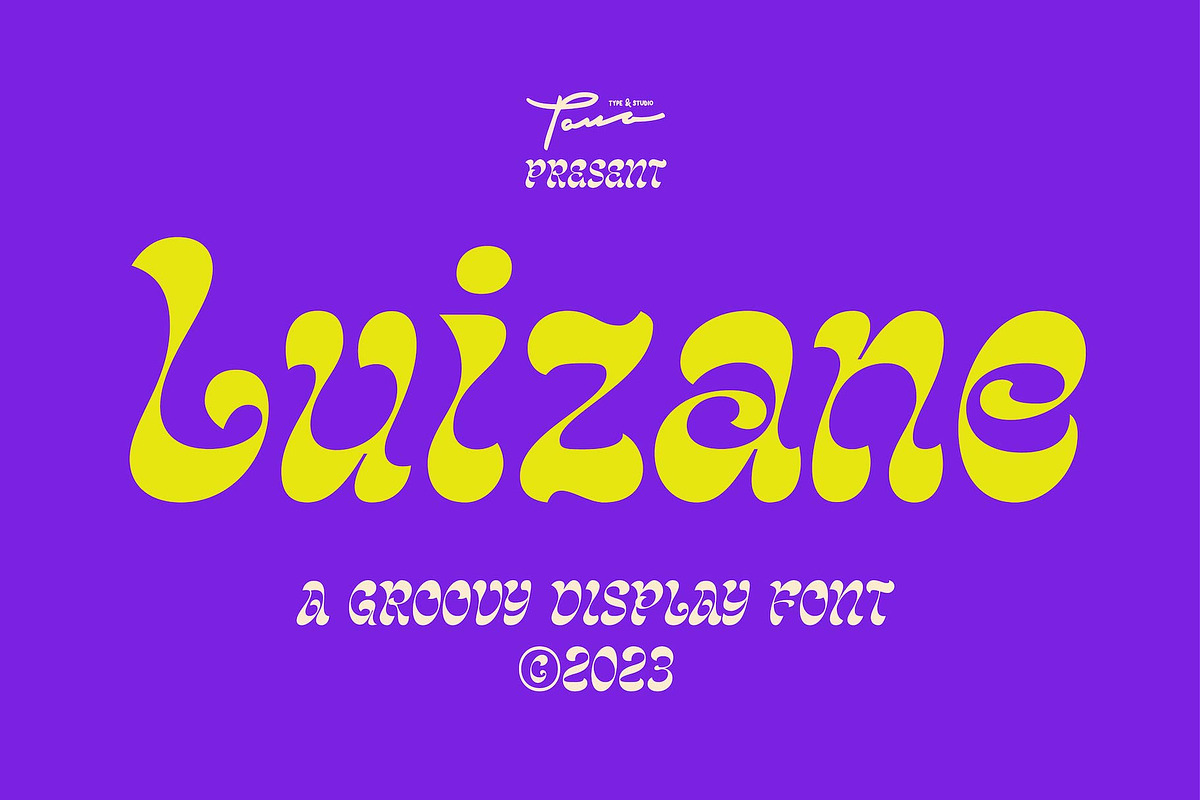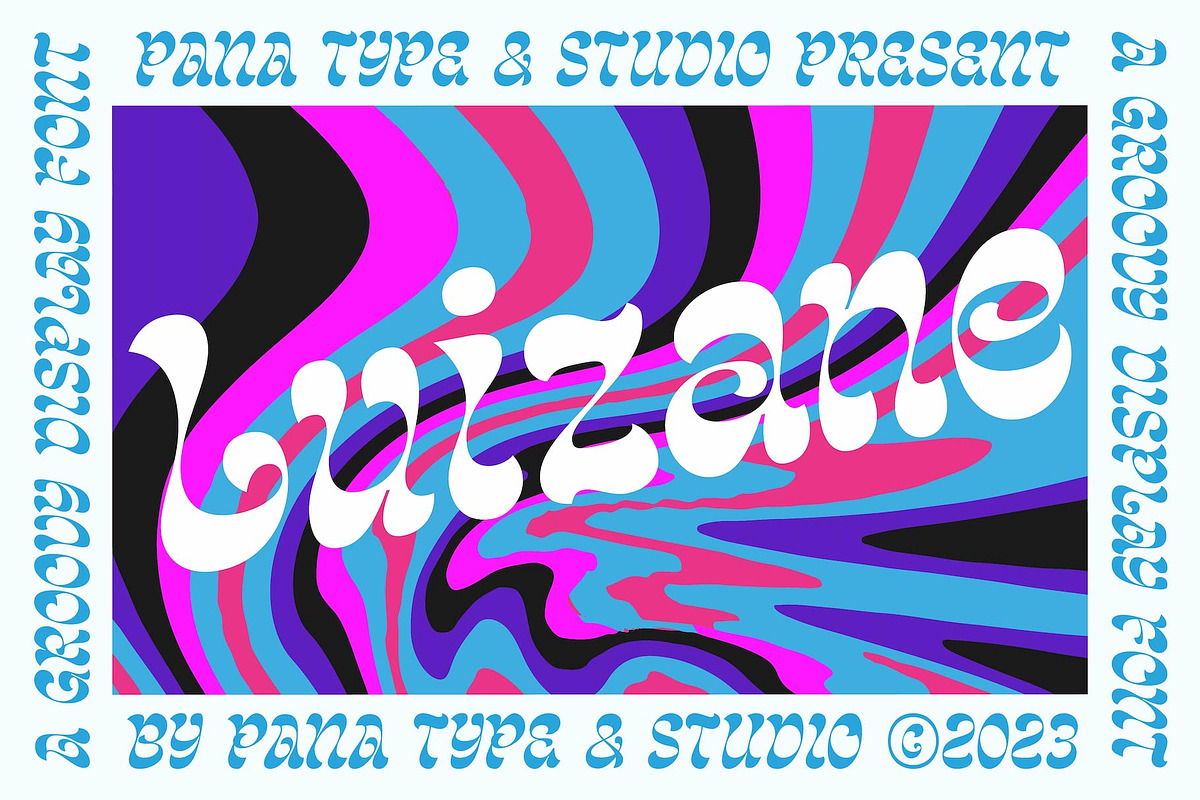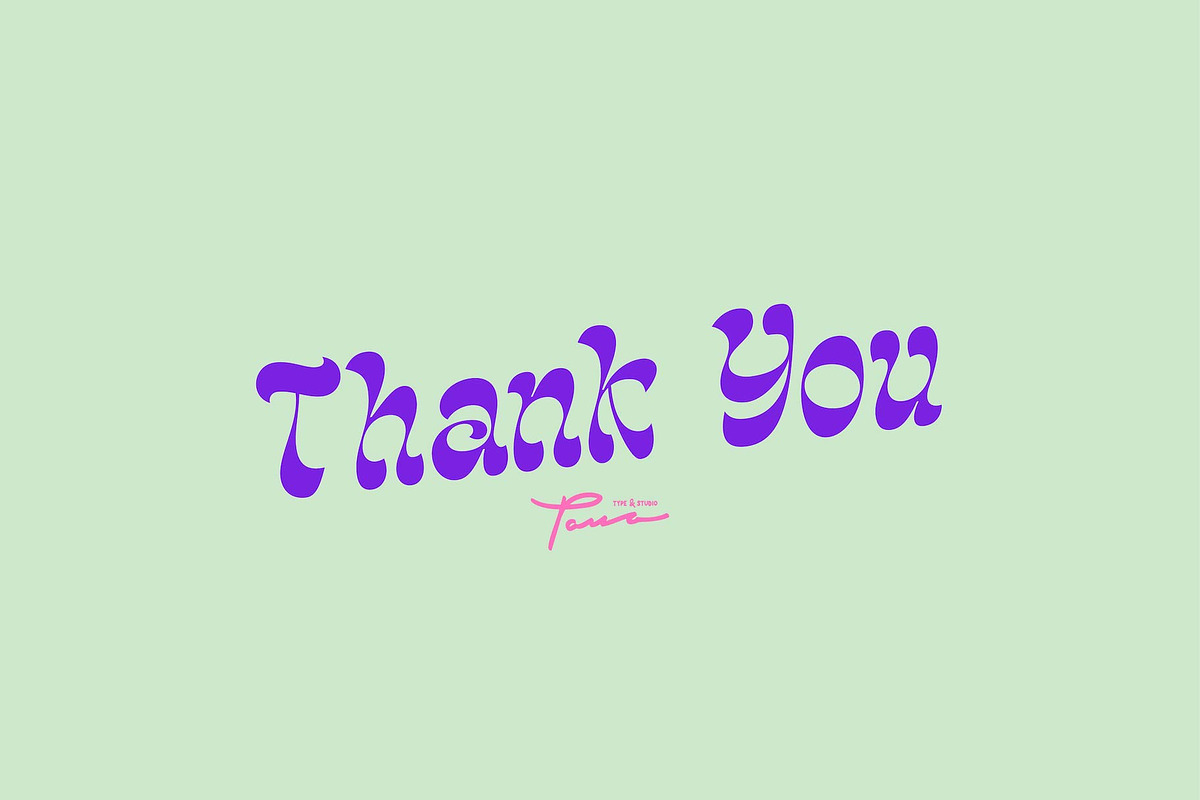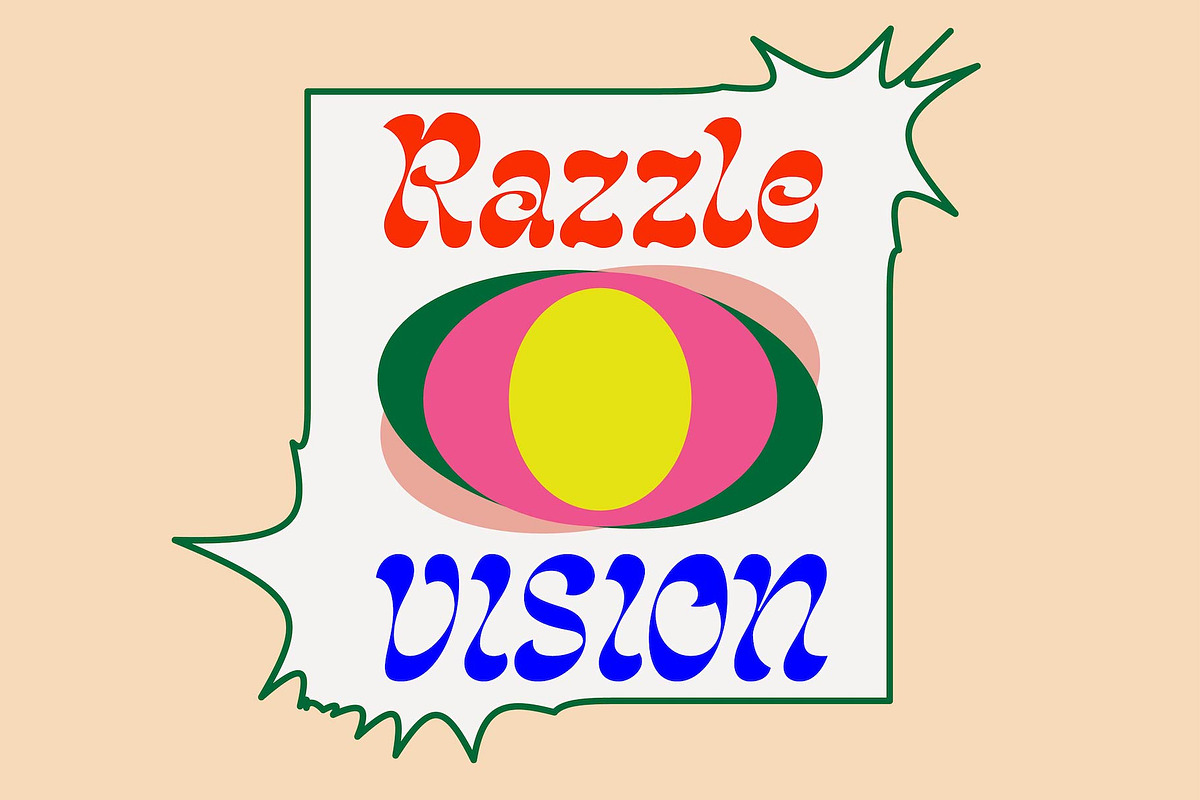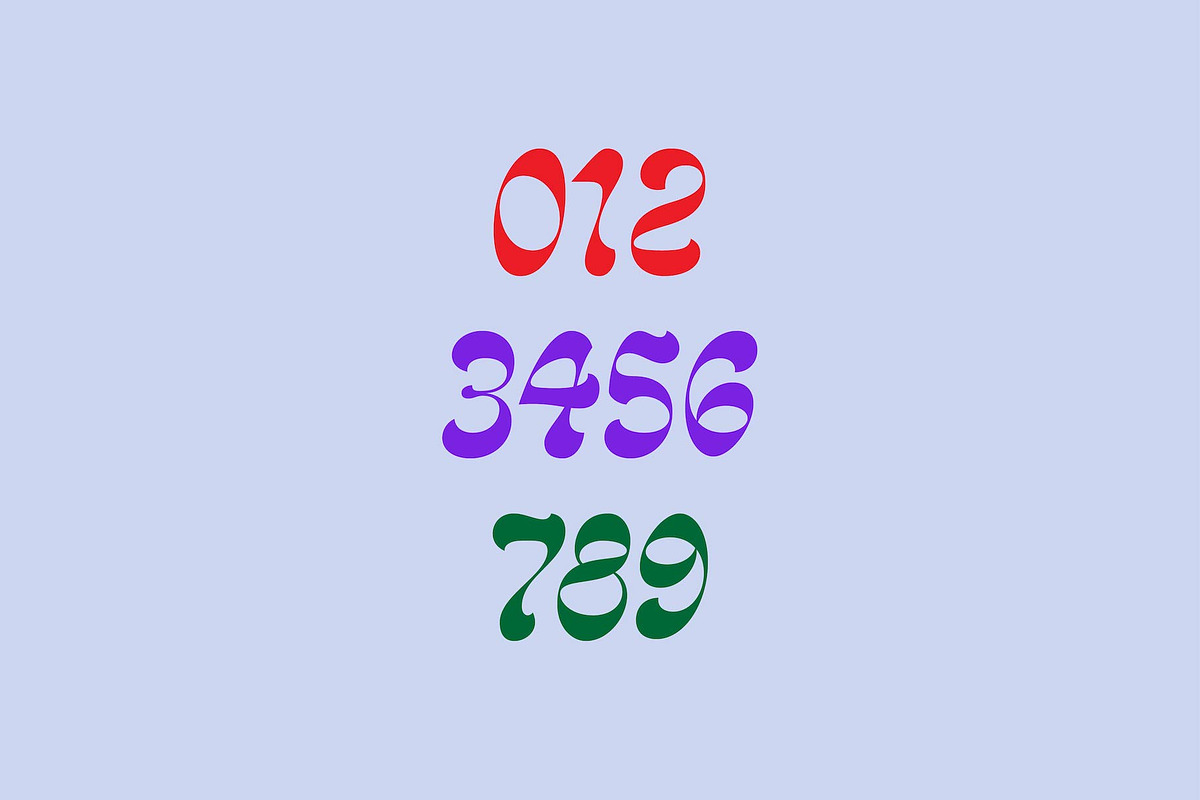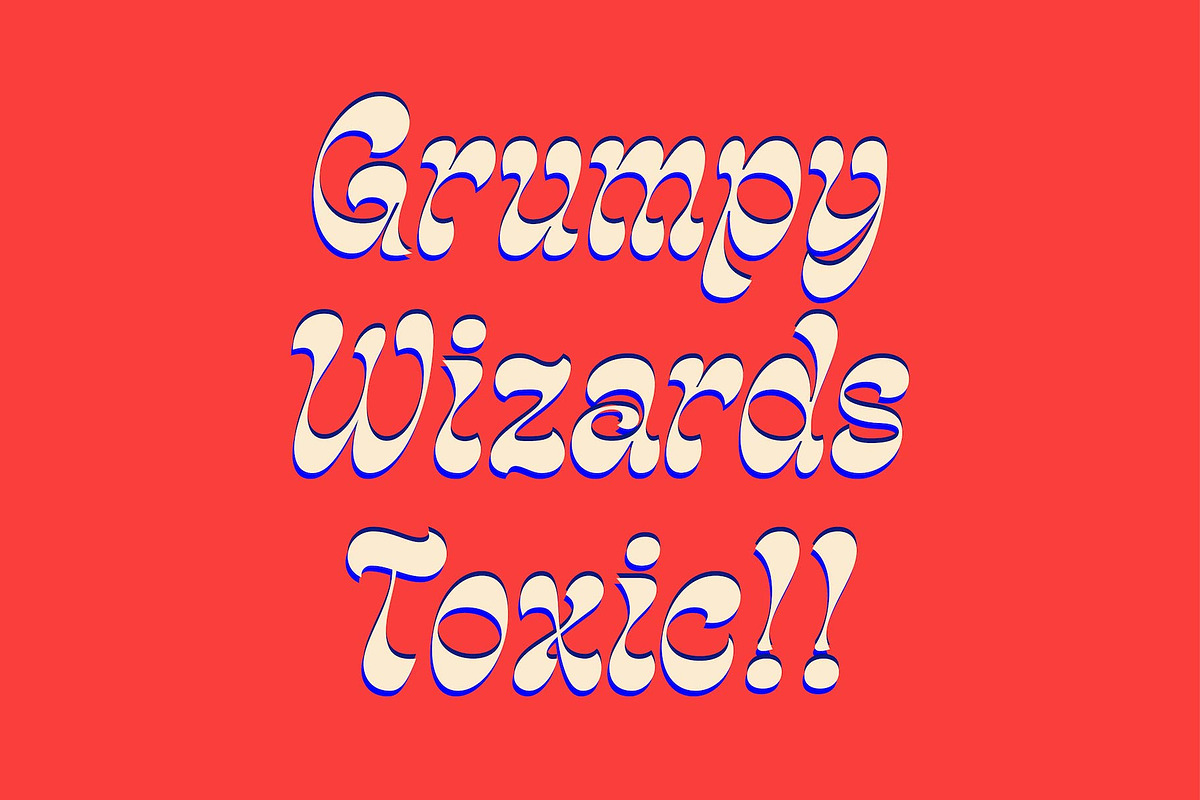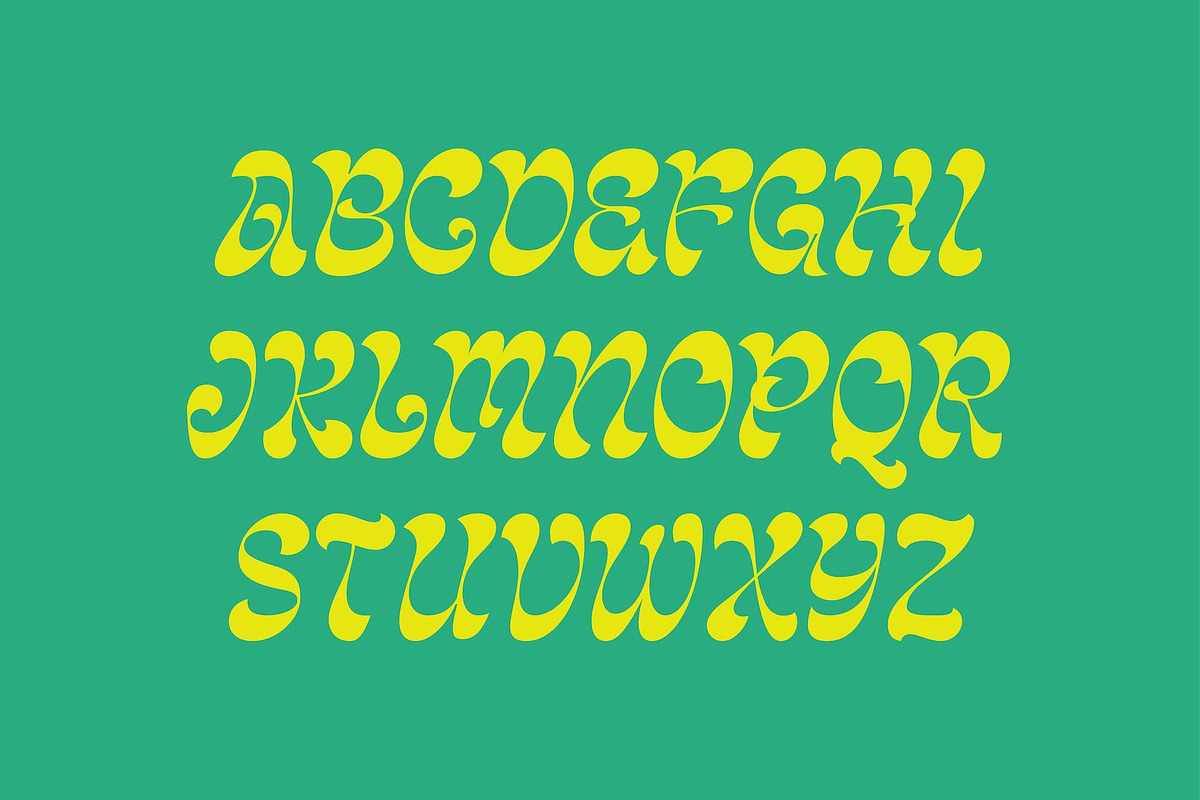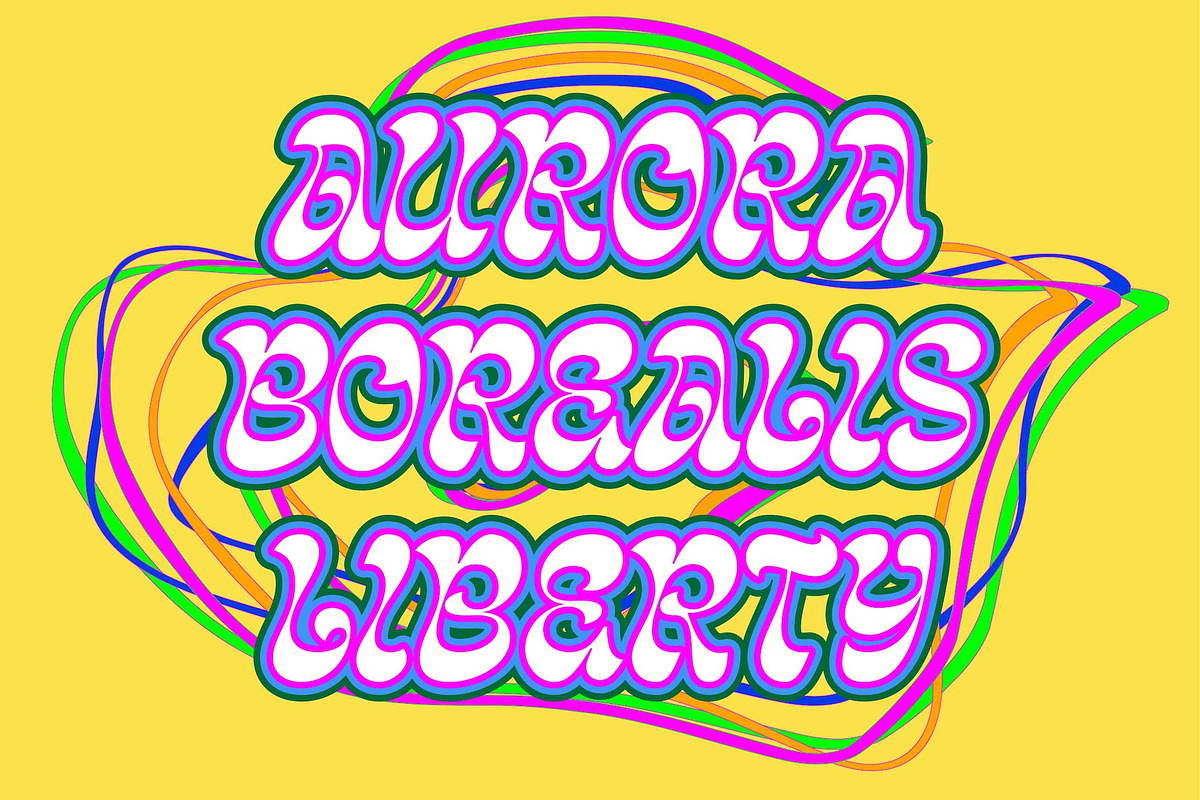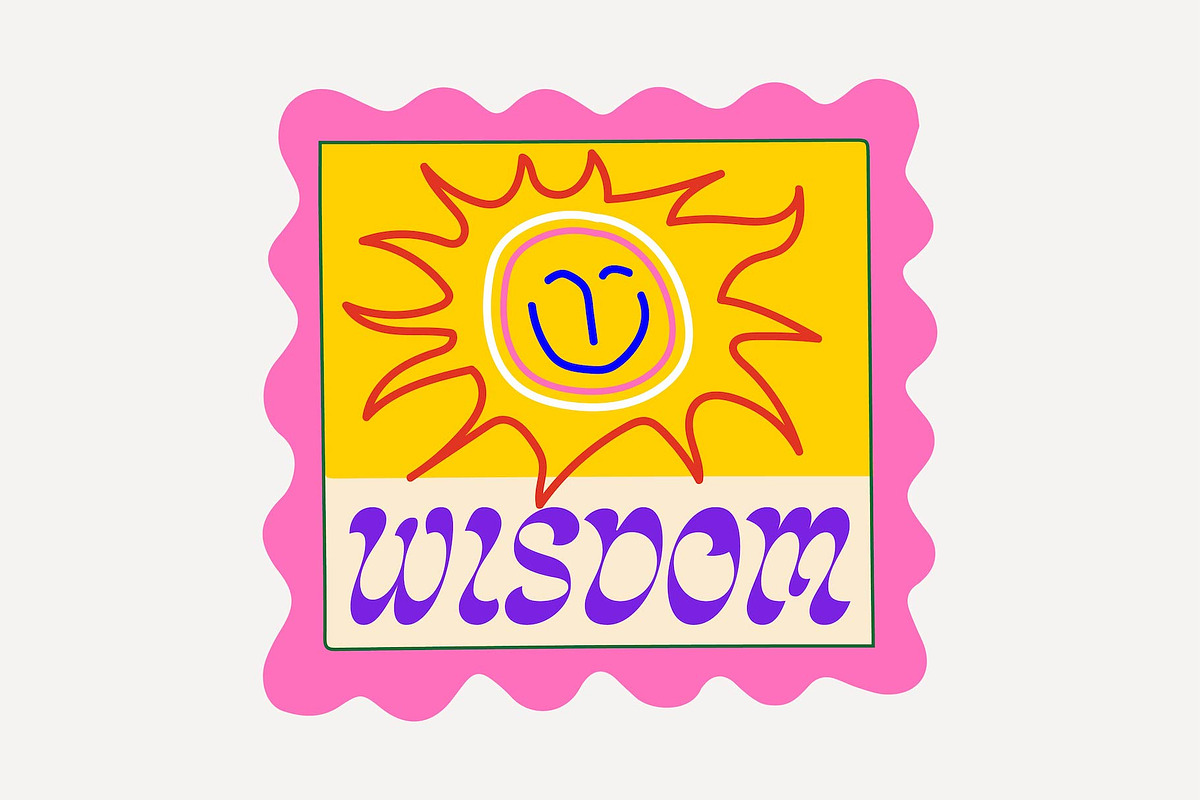
Luizane Groovy Font
LUIZANE is a psychedelic inspired typeface. It's retro, bold, and playful. Perfect for your designs that want to have fun, and carefully crafted for all graphic design needs.